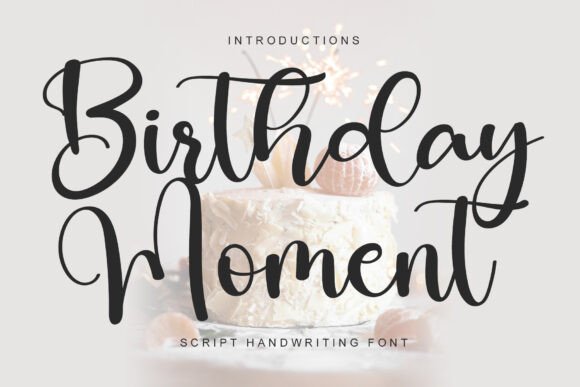
The Birth of a Beautiful Font: My Encounter with Birthday Moment
I still remember the time I was working on a wedding invitation project, and my client asked me to create a custom design that exuded elegance and romance. As I scrolled through my font library, I stumbled upon a charming handwritten script font that caught my eye – Birthday Moment. I was immediately drawn to its delicate curves and playful yet refined strokes. It was as if I had found the perfect match for my design. In this article, I’ll share my experience with Birthday Moment, a beautifully flowing handwritten script font that radiates joy and elegance.
A Personal Review of Birthday Moment
As a designer, I’m always on the lookout for fonts that can elevate my designs and make them stand out. Here’s what I love about Birthday Moment:
- ✨ Elegant and Refined: Birthday Moment has a sophisticated flair that makes it perfect for romantic designs, such as wedding invitations, event signage, and heartfelt stationery.
- ✅ Versatile: This font is suitable for a wide range of design projects, from formal events to casual gatherings.
- 💫 Unique Character: Birthday Moment has a distinct personality that sets it apart from other script fonts.
While Birthday Moment is an excellent font, it’s not without its quirks. Here are a few things to keep in mind:
- 🤔 Limited Ligatures: Some users may find that the font lacks ligatures, which can affect the overall flow of the text.
- ⚠️ Requires Attention to Kerning: As with any script font, kerning can be a challenge. Make sure to adjust the kerning to achieve the best results.
The Designer Inspiration Behind Birthday Moment
Birthday Moment was designed with the intention of creating a font that captures the joy and elegance of life’s sweetest occasions. The designer aimed to create a font that would be perfect for wedding invitations, event signage, and heartfelt stationery. With its delicate curves and playful yet refined strokes, Birthday Moment is sure to become a favorite among designers and crafters.
| Font Name | Birthday Moment Font |
| Author | 21Design |
| What is the best way to use Birthday Moment? | Birthday Moment is perfect for romantic designs, such as wedding invitations, event signage, and heartfelt stationery. |
| Is Birthday Moment suitable for body text? | While Birthday Moment is a beautiful font, it’s best suited for headings and titles. For body text, a clearer font may be more suitable. |
| Is Birthday Moment available in different languages? | Birthday Moment may not be available in all languages, but it does support a range of characters and glyphs. |